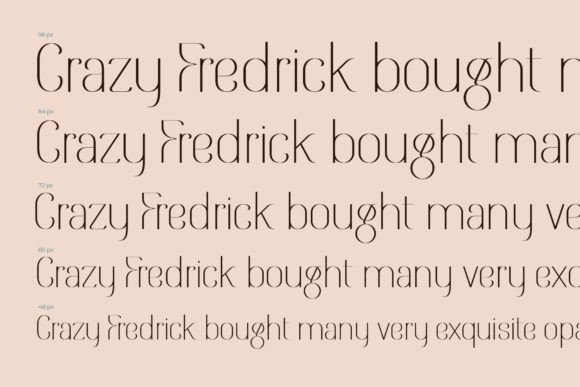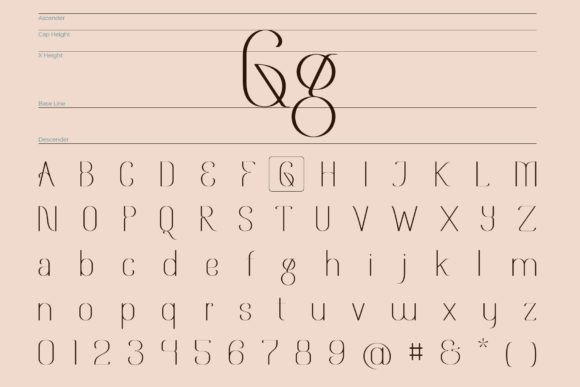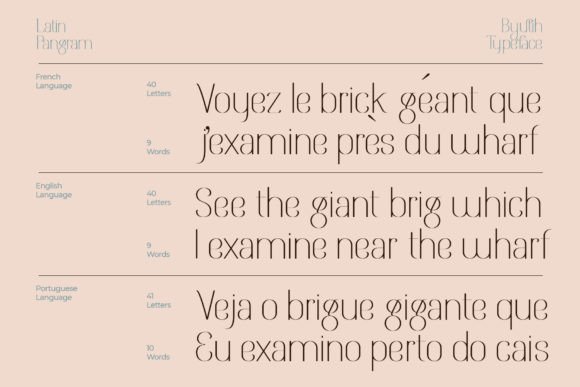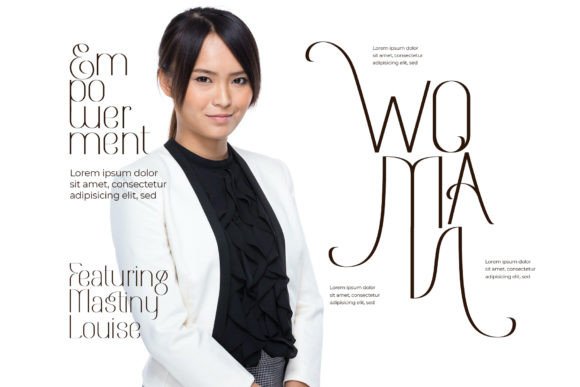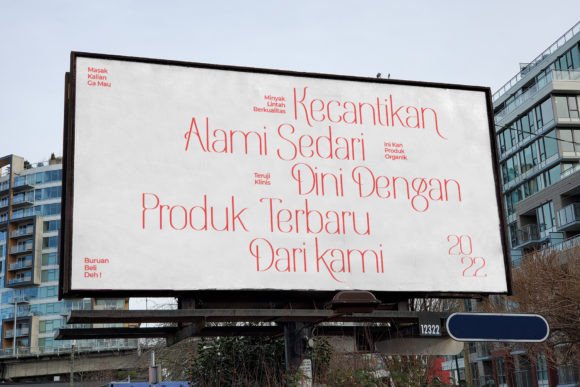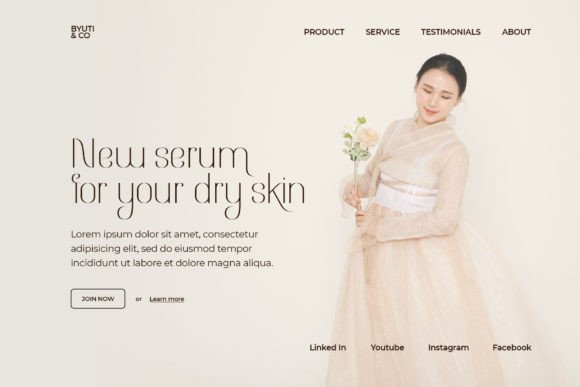
Discover the Elegance of Byutih Font: Elevate Your Designs with its Unique Sans Serif Style
In the world of typography, fonts play a crucial role in conveying the message and aesthetic of a design. For designers and crafters looking for a font that combines elegance, delicacy, and versatility, Byutih Font is an excellent choice. This beautifully crafted sans serif font is designed to add a touch of sophistication to any project, making it perfect for a wide range of applications.
What Makes Byutih Font Stand Out?
Byutih Font is not just another sans serif font; it’s an elegantly designed typeface that boasts a unique and delicate style. Its PUA (Private Use Area) encoding is a significant advantage, allowing users to access all glyphs and swashes easily. This feature makes it incredibly versatile, enabling designers to experiment with various design elements without limitations.
Key Features of Byutih Font
- Elegant and Delicate Design: Byutih Font features a sleek and refined design that adds a touch of elegance to any project.
- Versatile Style: Its unique style makes it suitable for a variety of design projects, from branding and advertising to packaging and digital content.
Applications of Byutih Font
The versatility of Byutih Font makes it an ideal choice for numerous design applications. Here are some of the areas where this font truly shines:
- Branding and Logo Design: Create memorable and elegant logos that stand out with Byutih Font’s unique style.
- Advertising and Marketing Materials: Use Byutih Font to add a touch of sophistication to your ads, brochures, and marketing materials.
- Packaging Design: Elevate your product packaging with a font that communicates luxury and elegance.
- Digital Content: Enhance your website, blog, or social media graphics with Byutih Font’s delicate and elegant style.
- Crafting and DIY Projects: For crafters and DIY enthusiasts, Byutih Font can add a professional touch to handmade cards, invitations, and other craft projects.
Tips for Using Byutih Font Effectively
- Combine with Other Fonts: Pair Byutih Font with complementary fonts to create visually appealing and dynamic designs.
- Adjust Font Sizes: Play with different font sizes to emphasize certain elements and create a hierarchy in your design.
- Consider Color: Choose colors that match the tone of your design and the elegance of Byutih Font.
Byutih Font is a beautifully designed sans serif font that offers elegance, versatility, and ease of use. Its unique style and PUA encoding make it an excellent choice for designers and crafters looking to elevate their projects. Whether you’re working on branding, advertising, packaging, or crafting, Byutih Font provides the perfect blend of sophistication and creativity. Discover the potential of Byutih Font and take your designs to the next level.
Fall in love with its incredibly versatile style and use it to create spectacular designs!